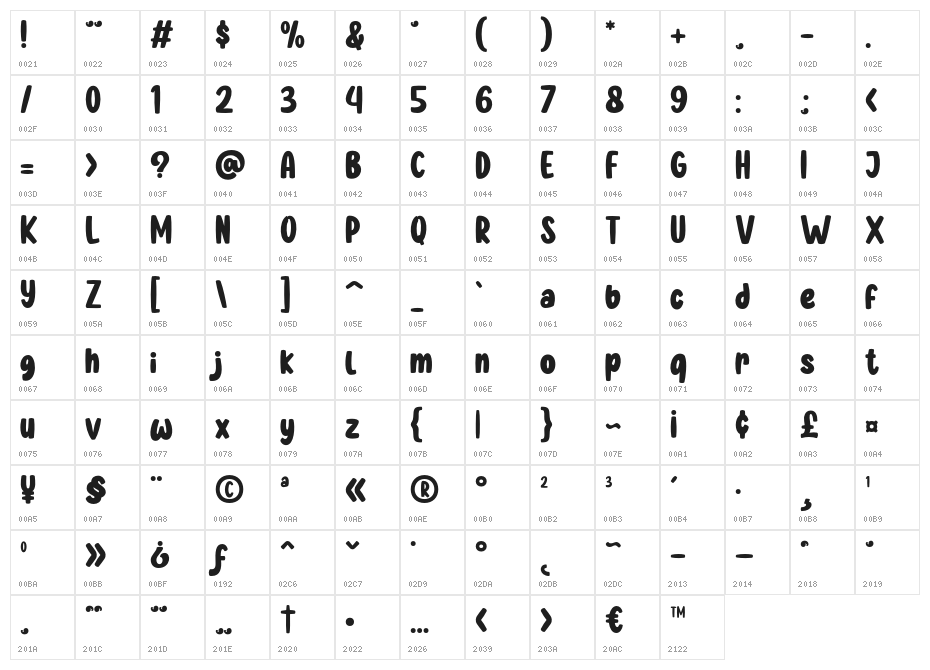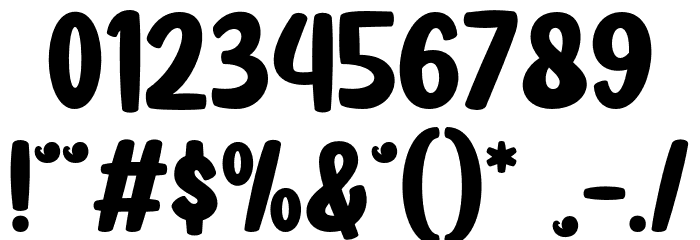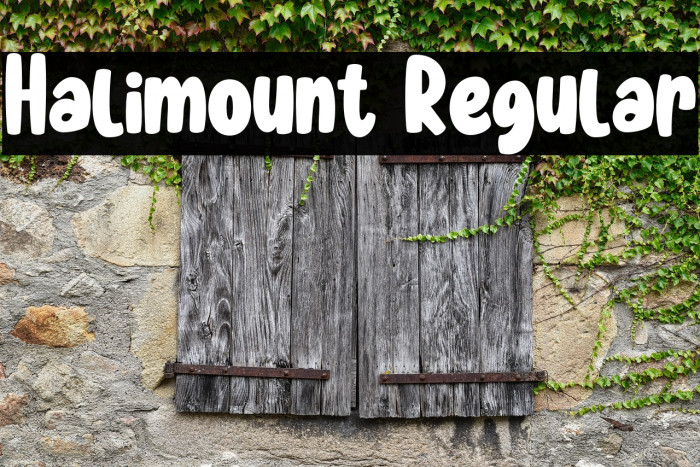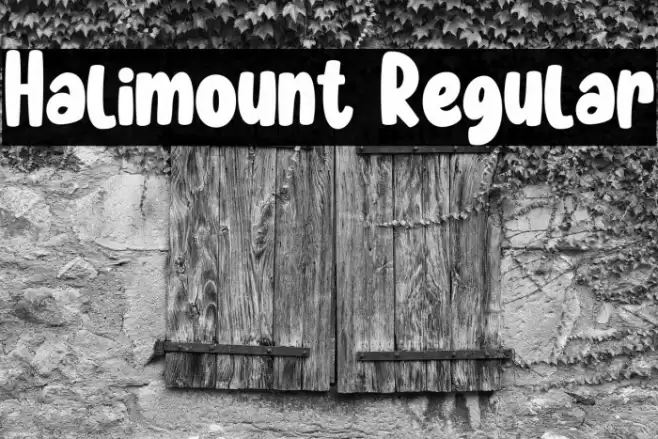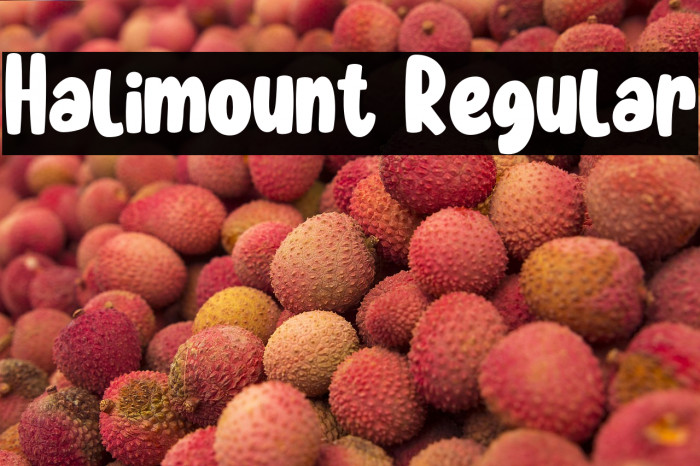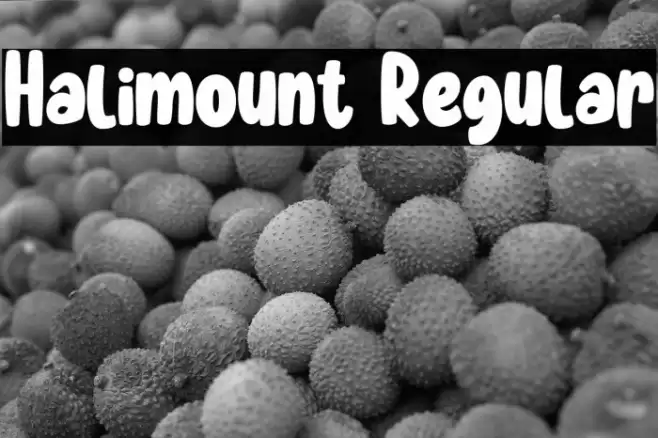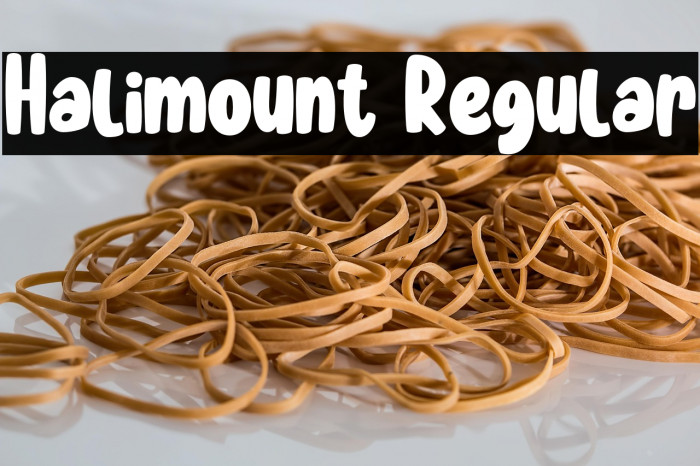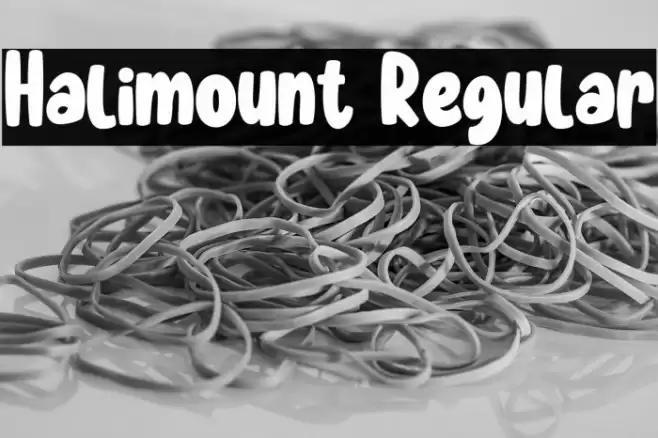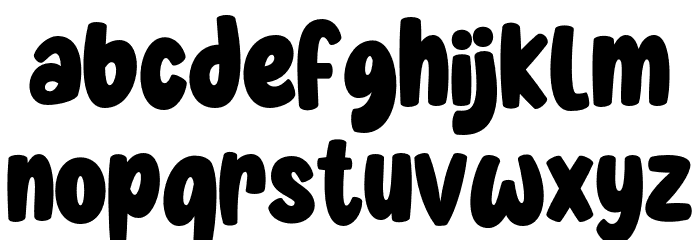
Halimount Regular Font
Halimount Regular Description
This playful and bold font features thick, rounded strokes that give it a friendly and approachable appearance. The characters are uniformly wide, with a consistent stroke thickness that maintains readability while adding a touch of whimsy. The uppercase and lowercase letters are well-balanced, with a slight bounce that adds to the font's charm. The numerals and special characters are designed to match the overall style, ensuring cohesion across all text elements. This font is ideal for projects that require a fun and engaging aesthetic.
| Overall Style | Playful |
| Proposed Projects | Perfect for children's books, playful branding, posters, and social media graphics. |